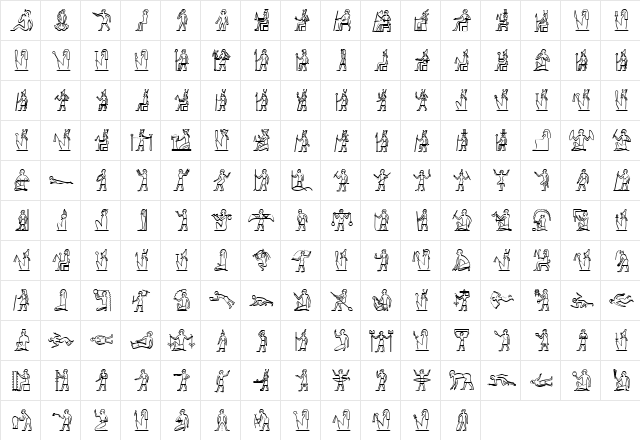
GlyphExtLibB Medium Font Preview
GlyphExtLibB Medium
Design Context for GlyphExtLibB Typeface
GlyphExtLibB is a composed and adaptable typeface that performs quietly and consistently across a wide range of design contexts.